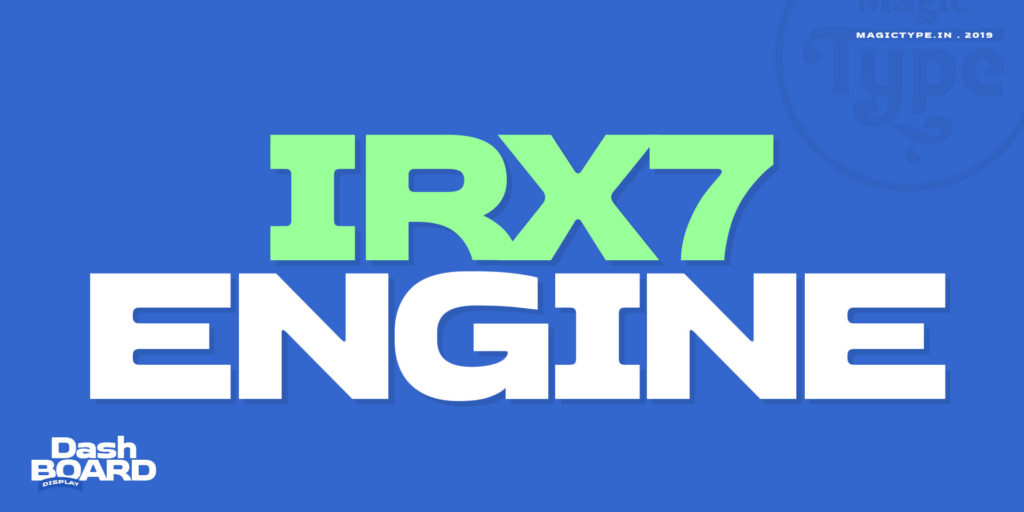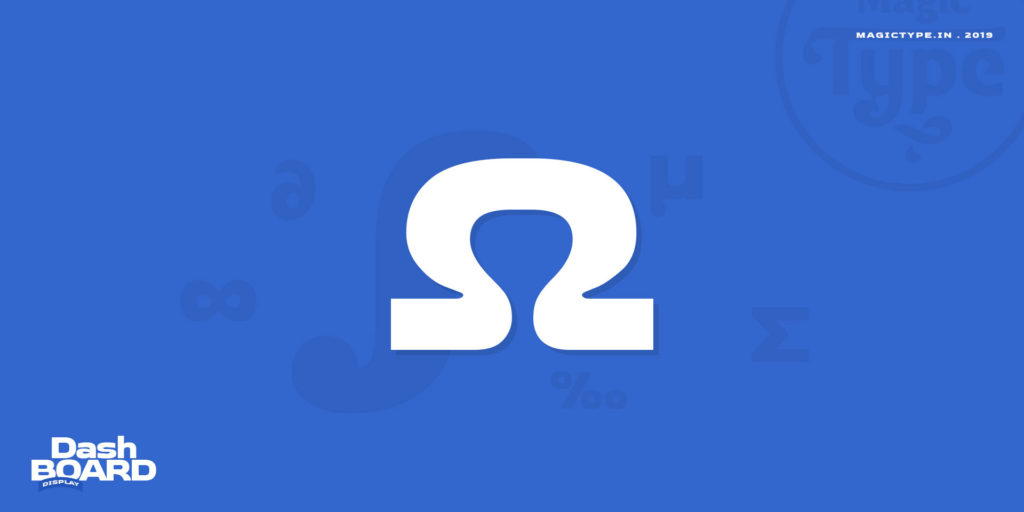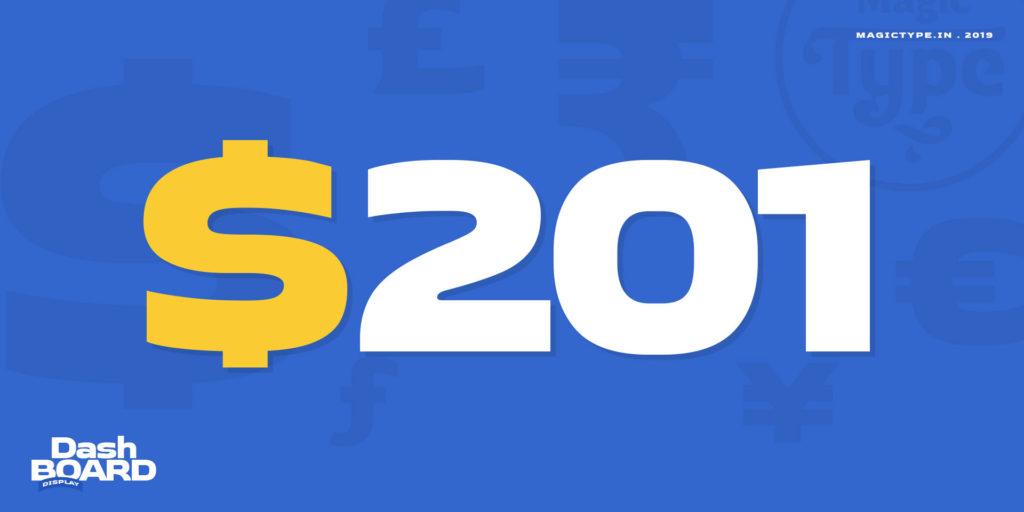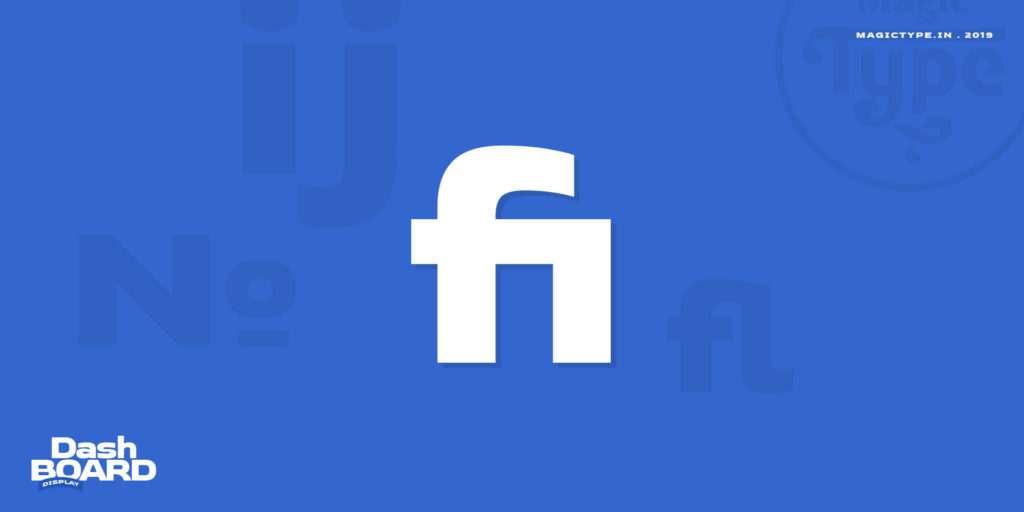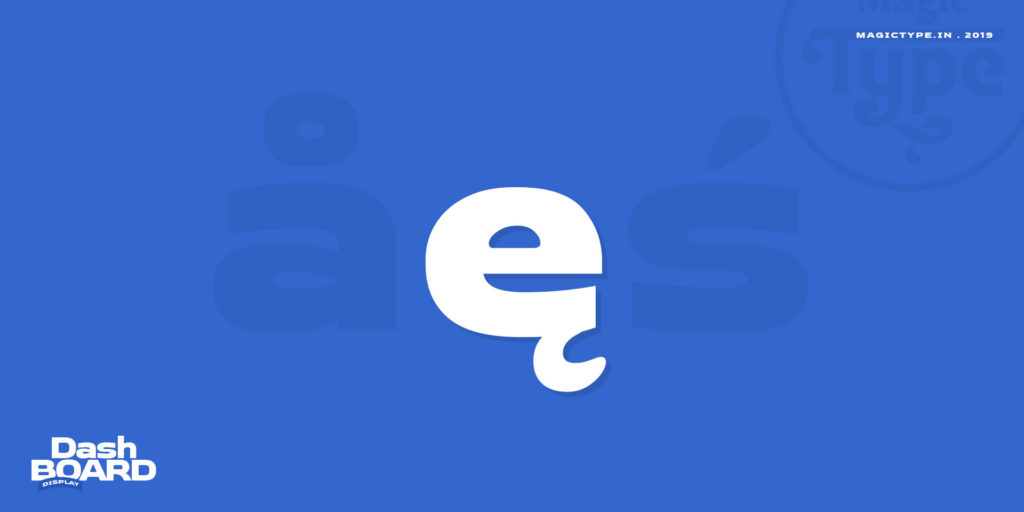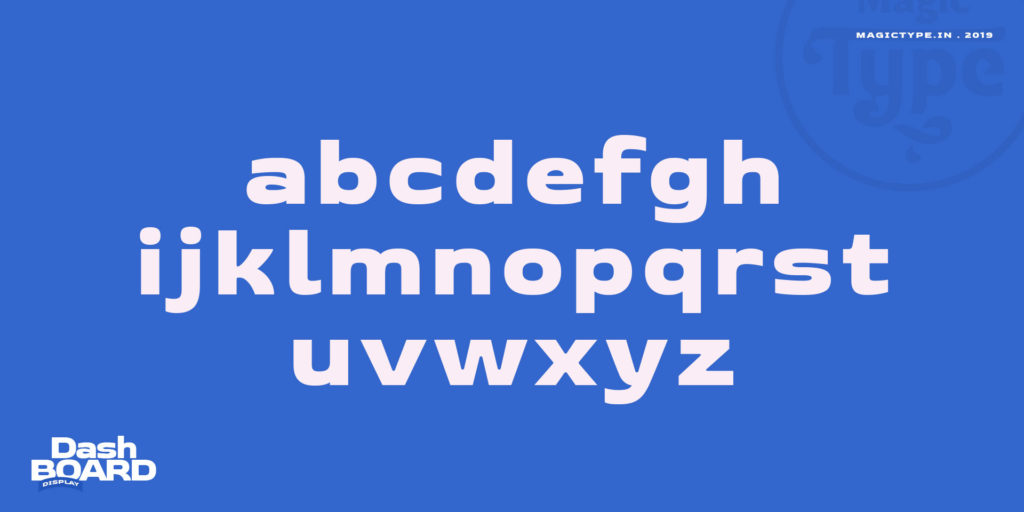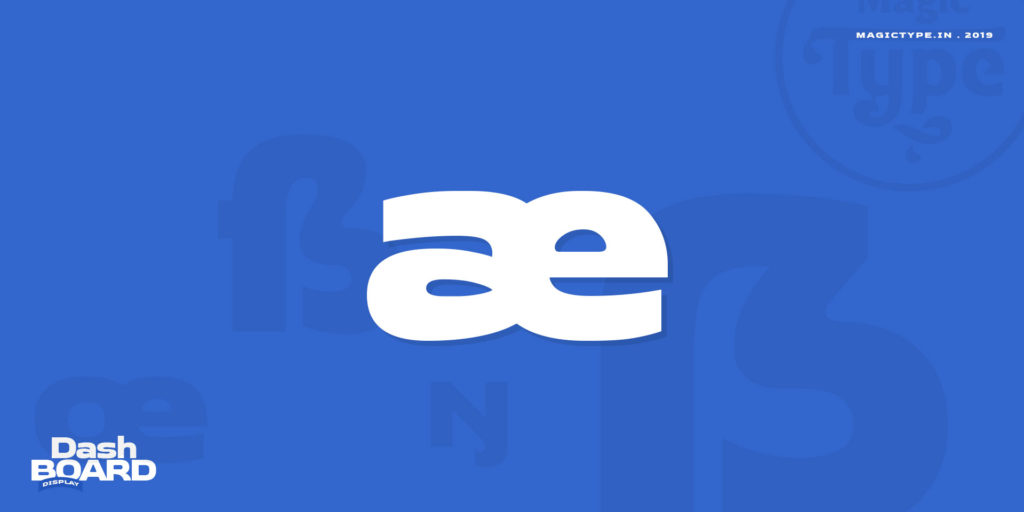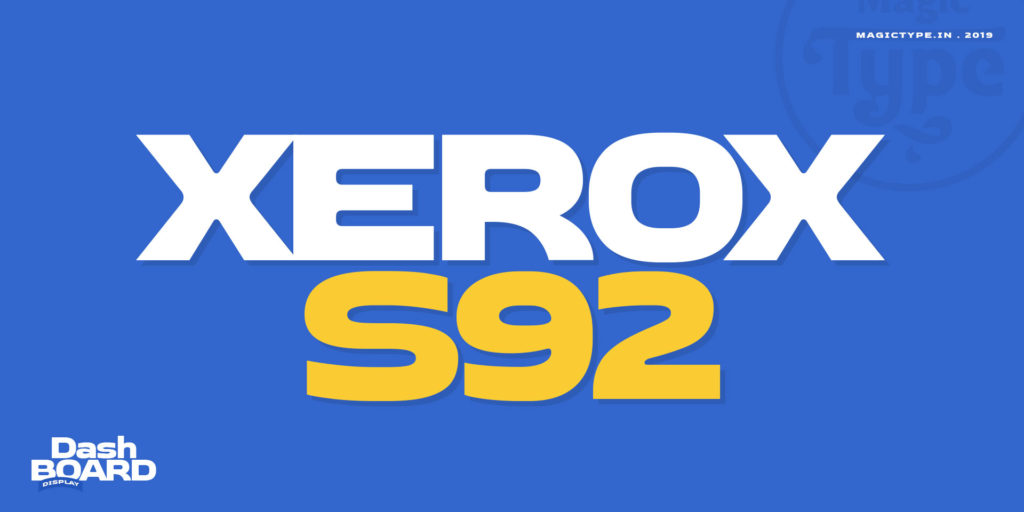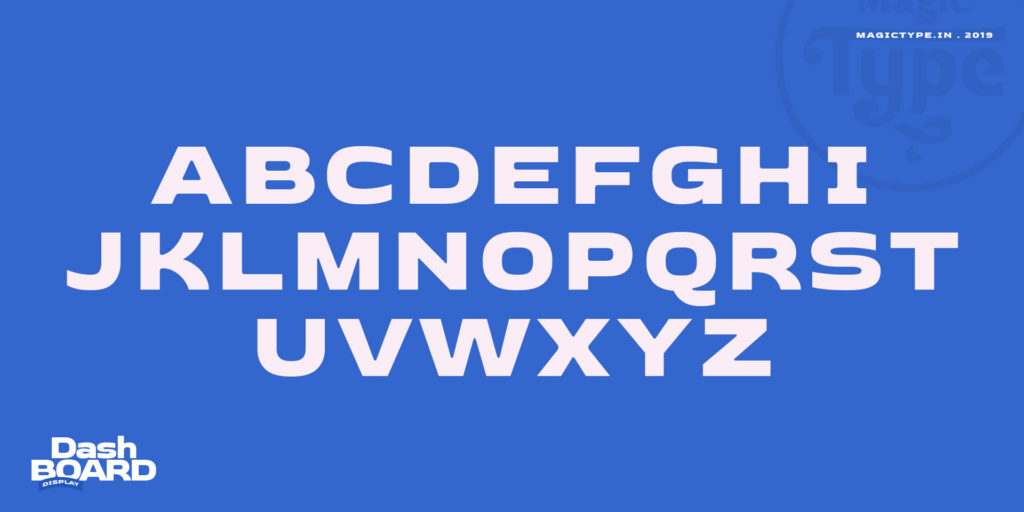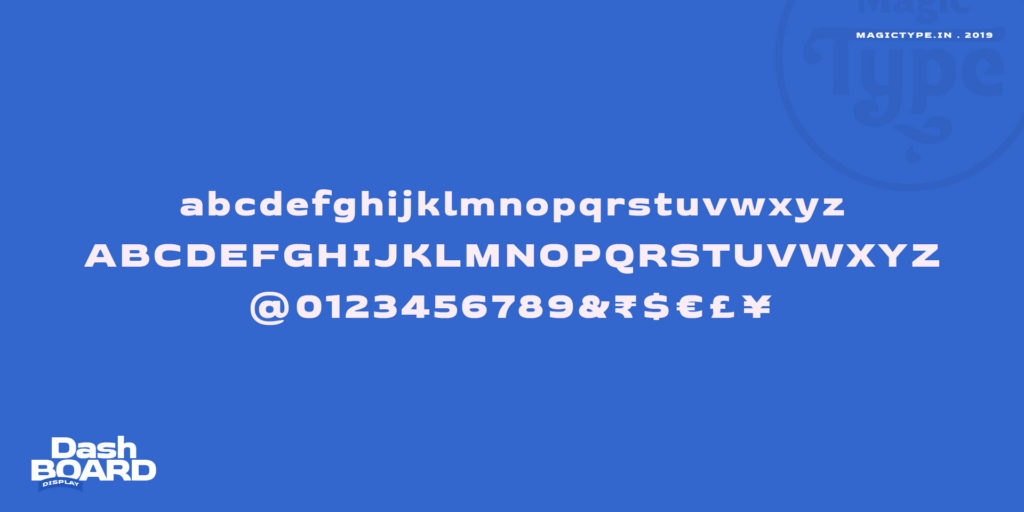
Dashboard: Latin Display typeface | Genre: Sports, Drama, Science Fiction, Adventure, Fantasy, Thriller | Designed by Jaikishan Patel
A sports and science fiction display typeface with a humanist touch of drama.
Big fat and wide display typeface that is designed for the dramatic and humorous highlights of the layout. With extra bold and wide glyphs, it's most suitable for big and bold title designs.
As a first thought, we do expect a geometric/ digital typeface for any kind of high tech action subjects these days. But the characters in this typeface are set to be humorously bold yet high tech enough to be among the big data. Most of the glyphs in this font family have organically adopted shapes from the primary geometric structure.
Dashboard is a Latin display typeface, suitable for book covers, magazine covers and film posters of sports, drama, science fiction, adventure, fantasy, thriller genres.